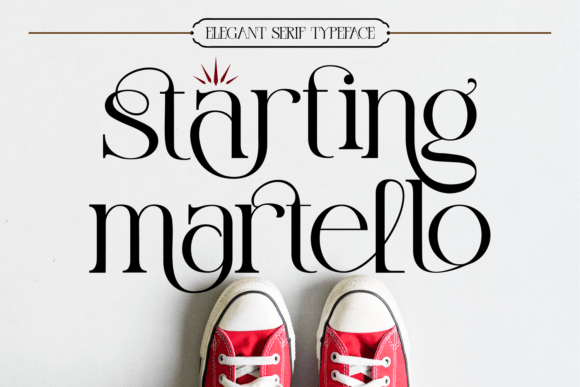
Embrace Sophistication and Style with Starting Martello: The Exquisite Serif Font for Your Creative Endeavors
In a world saturated with visual noise, your designs deserve to stand out with a touch of timeless elegance. Introducing Starting Martello, the modern serif font that harmoniously blends classic charm with a contemporary twist. This remarkable font family is meticulously crafted to elevate your creative projects to new heights of sophistication and professionalism.
Starting Martello is the perfect choice for editorial design, branding, and any project that demands a stylish and approachable serif font. Its balanced proportions and unique character shapes exude an air of refinement, ensuring your designs leave a lasting impression.
With Starting Martello, you'll effortlessly create logos that radiate elegance, website designs that captivate visitors, and marketing materials that demand attention. This font's versatility extends to packaging design, social media graphics, and even personal branding, making it an indispensable tool for any creative professional.
Harnessing the Power of Starting Martello:
• Editorial Design: Transform your words into captivating stories with Starting Martello's refined serif strokes, guiding readers through your content with ease and grace.
• Branding: Establish a strong and memorable brand identity with Starting Martello. Its timeless aesthetic will resonate with your audience, creating a lasting connection that sets you apart from the competition.
• Logos: Create logos that exude professionalism and sophistication. Starting Martello's balanced proportions and unique character shapes will ensure your logo stands out in the digital landscape.
• Marketing Materials: Captivate your audience with brochures, flyers, and posters that radiate elegance and professionalism. Starting Martello's versatility will elevate your marketing efforts, leaving a lasting impression on potential customers.
• Packaging Design: Elevate your product packaging with Starting Martello's timeless beauty. Its refined lines and soft curves will add a touch of luxury to your products, enhancing their appeal and desirability.
• Social Media Graphics: Engage your audience on social media with visually stunning graphics crafted with Starting Martello. Its stylish serif strokes will add a touch of sophistication to your posts, capturing attention and driving engagement.
• Personal Branding: Create a distinct and memorable personal brand with Starting Martello. This font will add a touch of professionalism and elegance to your resume, portfolio, and online presence, helping you stand out from the crowd.
Starting Martello: The Key to Unlocking Creative Success
Starting Martello is more than just a font; it's an investment in your creative endeavors. Its versatility and timeless appeal will empower you to create designs that captivate, inspire, and leave a lasting impression. Embrace the sophistication and style of Starting Martello today and unlock the full potential of your creative vision.